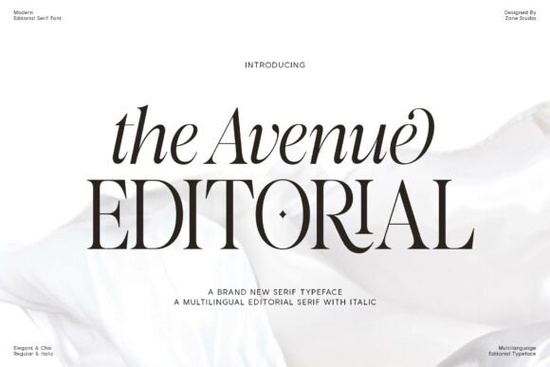
The Avenue Editorial Font is a modern serif typeface built for designers who want a polished, editorial look that still feels current. It blends classic letter structures with contemporary styling, making it a strong choice for magazine layouts, brand identities, and luxury print projects. If you've been looking for a serif font that reads as both refined and fresh, this one is worth a closer look.
What Makes This Serif Font Stand Out?
The first thing you'll notice is the contrast. Thick and thin strokes play off each other in a way that feels balanced not harsh. Subtle curves give each letter personality without sacrificing readability. It's the kind of typeface that holds up at a small caption size just as well as it does stretched across a full-page headline.
The italics deserve special attention. They aren't simply a slanted version of the regular weight. Each italic letter was designed with its own rhythm, which gives text a natural flow when you need emphasis or hierarchy in a layout.
What Types of Projects Work Best With It?
This font was designed with editorial work in mind, but its range goes beyond magazine spreads. Here are a few common uses:
- Magazine covers and article layouts the classic-modern balance suits fashion, lifestyle, and culture publications
- Luxury branding packaging, business cards, and brand guidelines that need a high-end feel
- Wedding invitations and stationery the elegant italics add a romantic touch without being overly decorative
- Website headers and hero sections clean enough for digital screens, distinctive enough to stand out
- Print-on-demand products quote posters, apparel designs, and wall art that call for a sophisticated serif
Does It Support Multiple Languages?
Yes. The Avenue Editorial comes with extensive multilingual character support, so you can use it for projects targeting international audiences without running into missing glyphs. This matters if you're designing for clients in Europe, Latin America, or Southeast Asia, where accented characters are a baseline requirement.
For print-on-demand sellers listing products on global marketplaces, built-in language coverage saves real time. You won't need to swap in a fallback font every time a customer requests a different language.
What Fonts Pair Well With The Avenue Editorial?
Pairing serif fonts takes some care. You want enough contrast to create hierarchy without the combination feeling disjointed. A few pairings that work well:
- A clean sans-serif for body text keeps paragraphs readable while The Avenue Editorial handles headlines
- A bold display font for posters or packaging adds visual weight where you need impact
- A complementary serif for quotes or secondary text something like a refined, editorial-inspired serif can share the same sophistication without competing directly
For projects with a more playful or seasonal tone think summer branding or tropical-themed products a relaxed, casual serif makes a good contrast to the polished structure of The Avenue Editorial.
When your work sits firmly in luxury or fashion territory, a sleek modern serif pairs nicely when you need two serif fonts at a similar level of refinement but with different personalities.
If your business depends on visual branding social media graphics, packaging, printed materials a well-made serif font makes a noticeable difference. Overused free typefaces can make a brand look generic. A thoughtfully designed premium font adds a layer of professionalism that people sense, even if they can't explain why.
Designers handling client projects will also appreciate the flexibility. The range of weights and carefully built italics mean you can create complex typographic hierarchies without reaching for five separate fonts.
Wedding stationery designers, in particular, can pair it with something more delicate. An elegant, flowing serif alongside The Avenue Editorial opens up more layout options for invitations, menus, and save-the-dates.
How Do I Know It's the Right Fit?